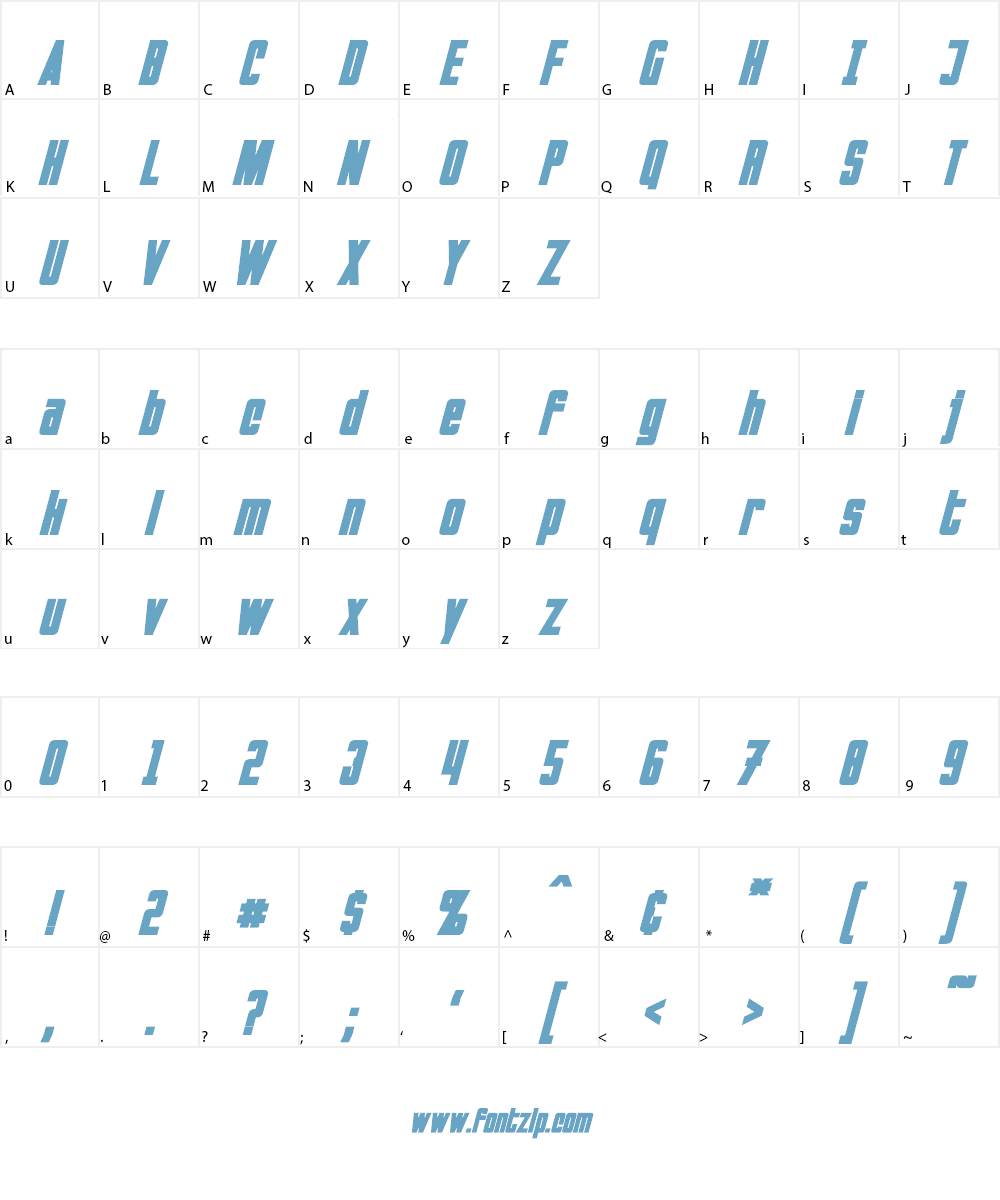
Invaders is a science-fiction themed font inspired on movie posters from the 1960s ‘horror/monster-aliens’ shtick. Includes standard glyphs, Euro, and accented characters. Includes bold, italic, and bold-italic versions. (Version 1.10)